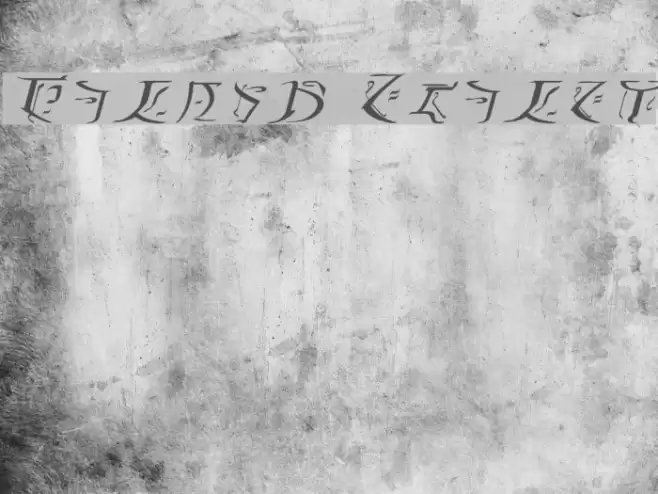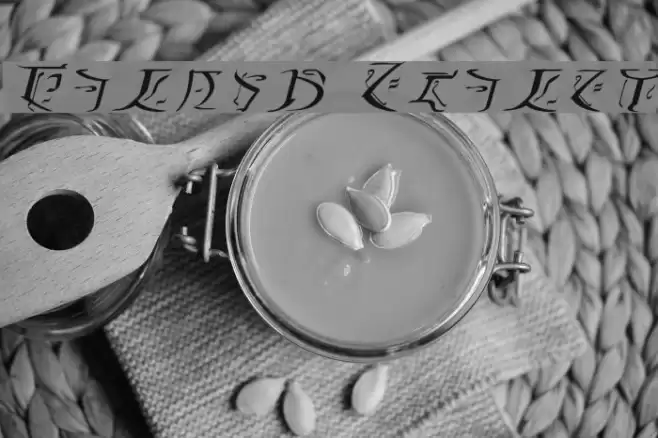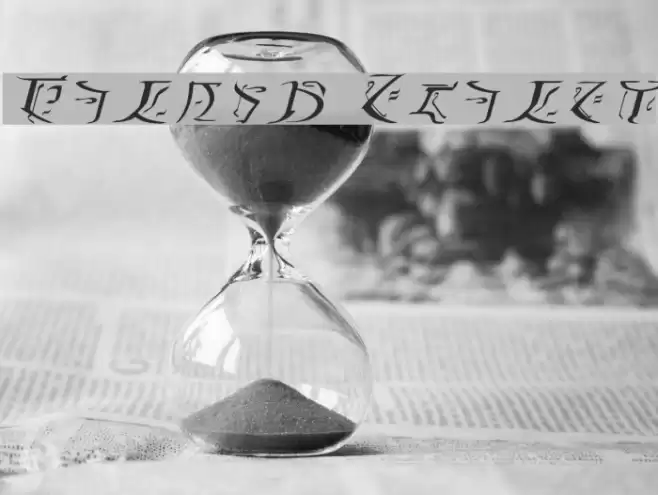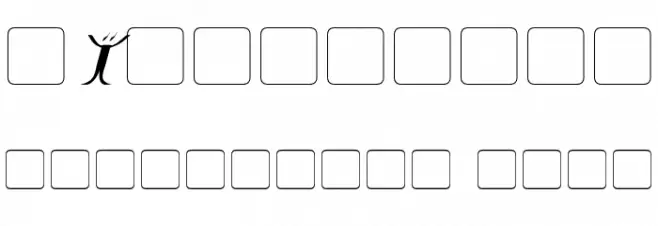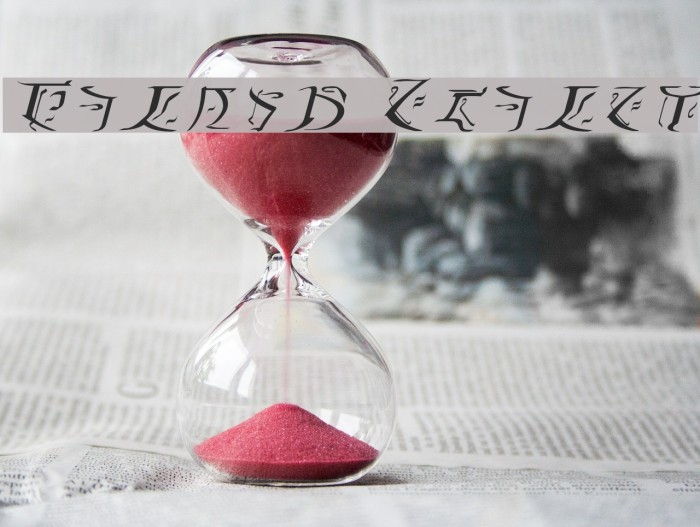
Falmer Italic Font
Falmer Italic Description
This font features a highly decorative and intricate design, characterized by its unique and artistic letterforms. Each character is crafted with elaborate curves and sharp angles, giving it an almost mystical appearance. The strokes vary in thickness, adding a dynamic and fluid quality to the text. The overall style is reminiscent of ancient scripts, with a modern twist that makes it suitable for fantasy-themed projects. The font's distinctive style makes it stand out, making it ideal for use in creative and artistic contexts where a touch of elegance and mystery is desired.
A decorative and intricate font with artistic letterforms and dynamic strokes from Farsi fonts.
- Proposed Projects: Ideal for fantasy-themed projects, book covers, game titles, and artistic designs.
- Use Case: Logos, Titles, Artistic designs